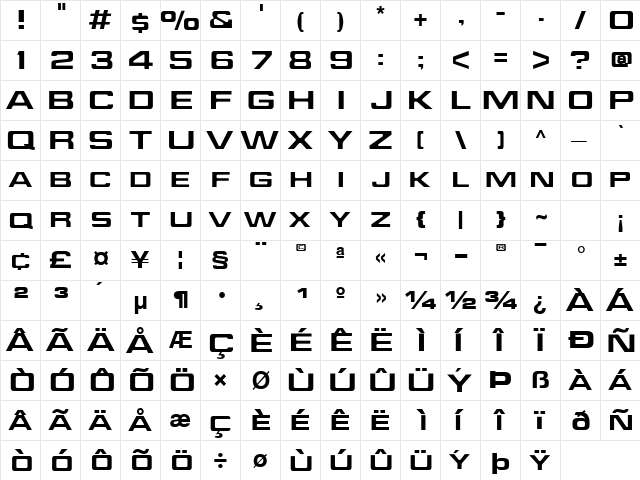
Jefferies Extended
Design Context for Jefferies Typeface
Jefferies takes a measured approach to typography — its balanced proportions and neutral character make it a reliable workhorse for both digital and print work.